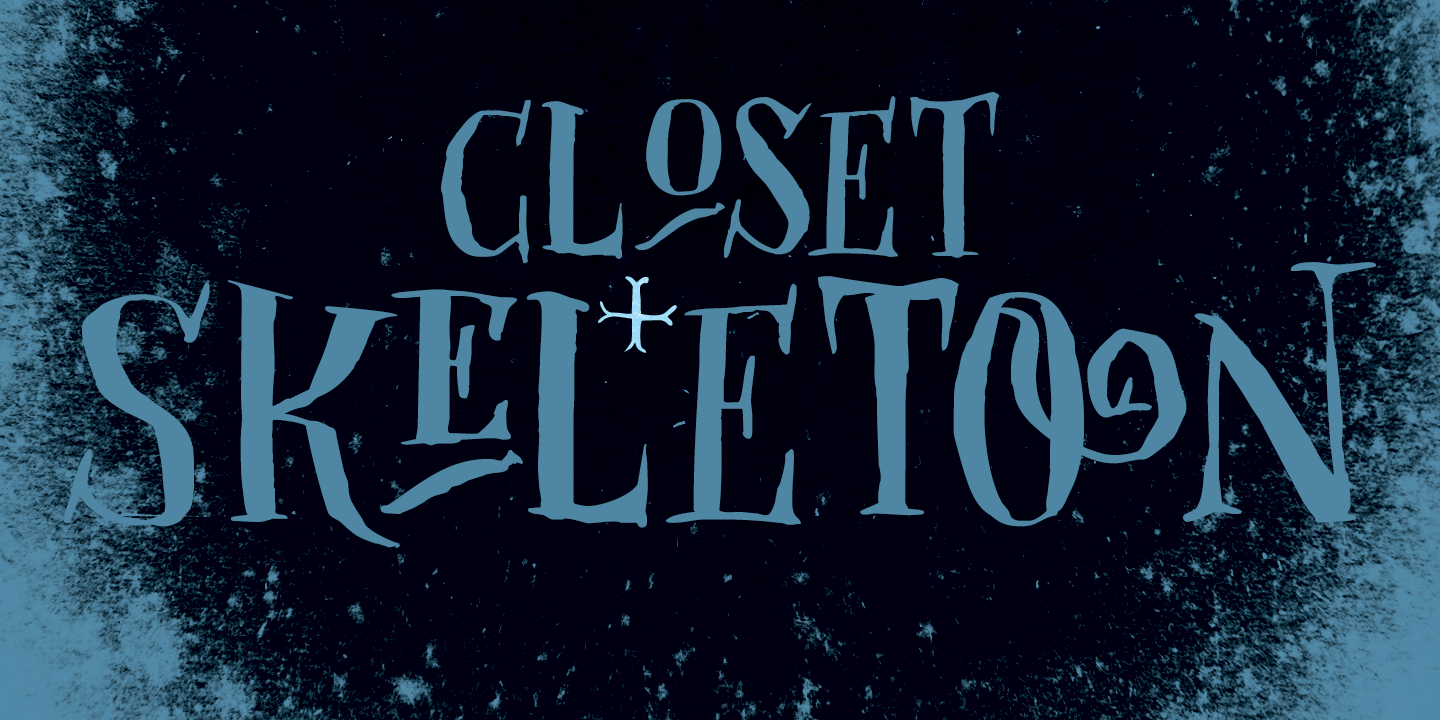
Closet Skeleton Font is an intriguing choice for projects that aim to evoke a spooky, mysterious, or macabre aesthetic with a playful twist. It's perfectly suited for Halloween event invitations, horror game titles, gothic-themed branding, dark fantasy book covers, and unique social media graphics for alternative content. Its eerie yet captivating character makes it ideal for conveying a sense of chilling curiosity and distinctive style.
What makes Closet Skeleton Font so exciting is its ability to immediately infuse designs with an atmospheric and slightly unsettling charm. It often features skeletal elements, jagged edges, or a gaunt appearance that brings a unique visual narrative to your text. This font doesn't just display words; it whispers secrets from the shadows, adding a hauntingly memorable presence to any design, perfect for brands that want to communicate with an unconventional and intriguing attitude.
The Closet Skeleton Font family typically offers variations to enhance its versatility and impact. You'll often find Closet Skeleton Regular as the primary style, with potential bold or textured versions to maximize visual punch and distressed effects. Some Closet Skeleton Font families might even include stylistic alternates or ligatures that allow for more creative exploration, ensuring you can maintain a consistent, eerie theme across diverse design applications. For those ready to explore its spine-tingling potential, Closet Skeleton Font Free Download offers a prime opportunity to test its capabilities.